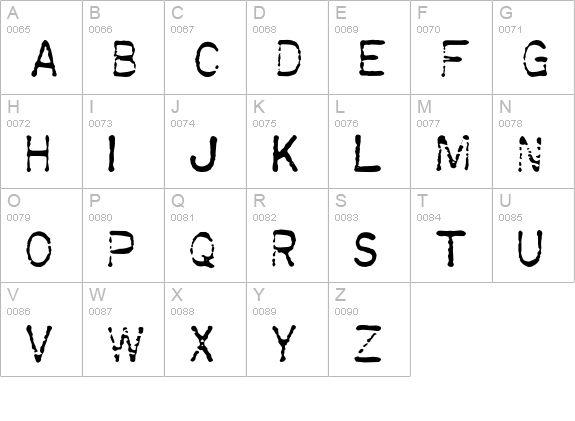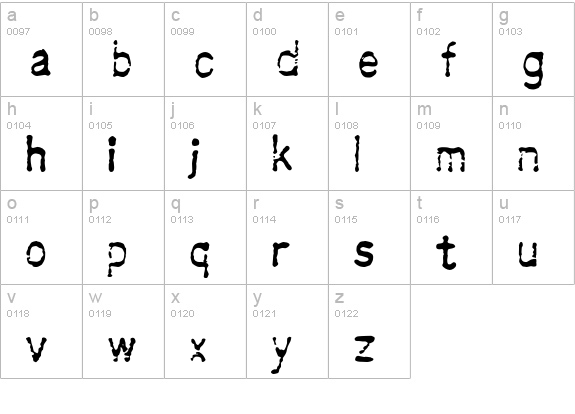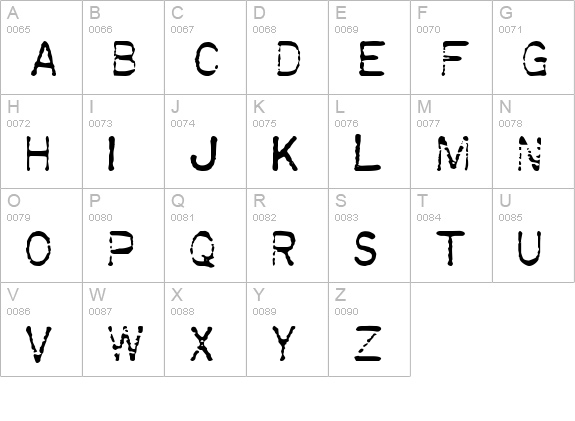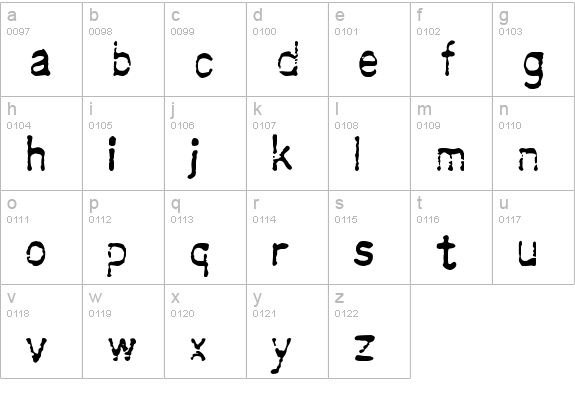
Crunk Font Details
Introducing Crunk font, a bold and eye-catching typeface that exudes energy and excitement. This unique font features strong, angular lines and a modern aesthetic that is sure to make your designs stand out. Whether you're creating posters, logos, or social media graphics, Crunk font is the perfect choice to add a touch of edginess to your projects. Best of all, Crunk font is completely free to download at FontsMarket.com. So why wait? Add this dynamic font to your collection today and let your creativity shine with Crunk font!